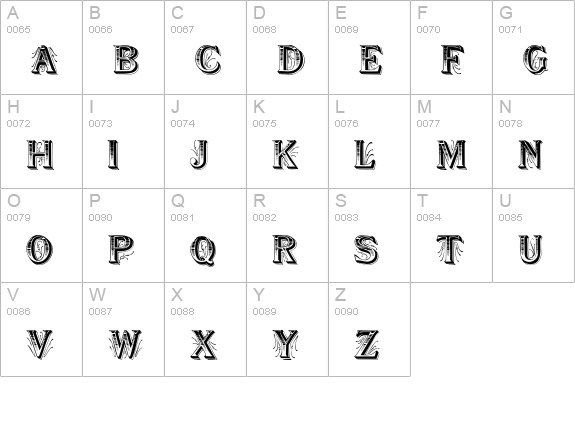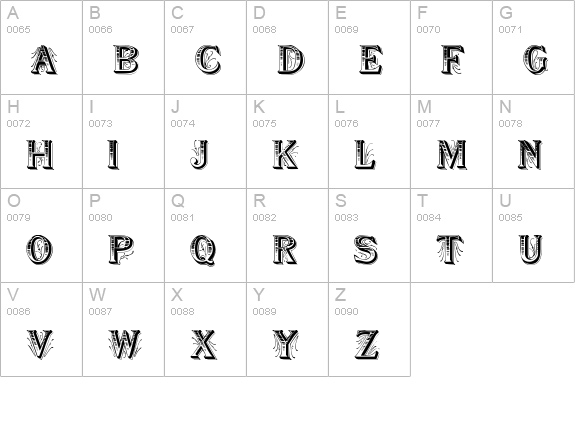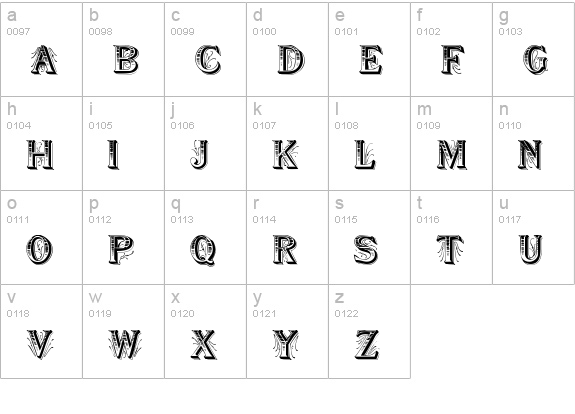
BoutiqueDisplayCaps Font Details
BoutiqueDisplayCaps font exudes elegance and sophistication with its stylish and unique design. This font is perfect for adding a touch of luxury to your projects, whether it's for branding, invitations, or editorial designs. The sleek lines and intricate details of BoutiqueDisplayCaps font make it stand out from the crowd and elevate any piece of work. And the best part? BoutiqueDisplayCaps font is available for free download at FontsMarket.com, making it accessible to all designers and creatives looking to enhance their projects with a touch of class. Don't miss out on this opportunity to add a touch of luxury to your designs with BoutiqueDisplayCaps font. Download it now and let your creativity shine!